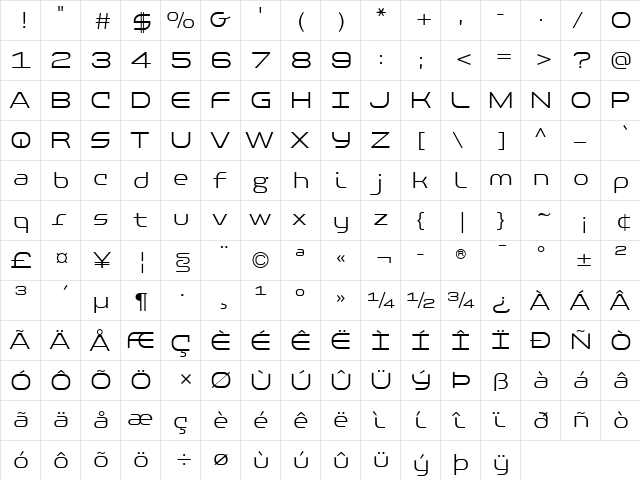
PF Baseline Pro Light
| Foundry | Parachute蠗orldwide |
| Designer | Panos Vassiliou |
Design Context for PF Baseline Pro Typeface
PF Baseline Pro is a composed and adaptable typeface that performs quietly and consistently across a wide range of design contexts. Its slender proportions lend an understated elegance to any composition.